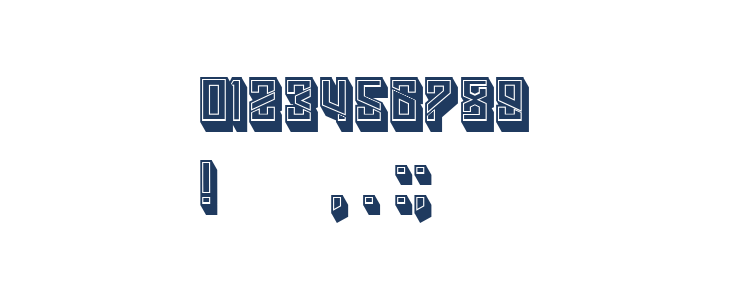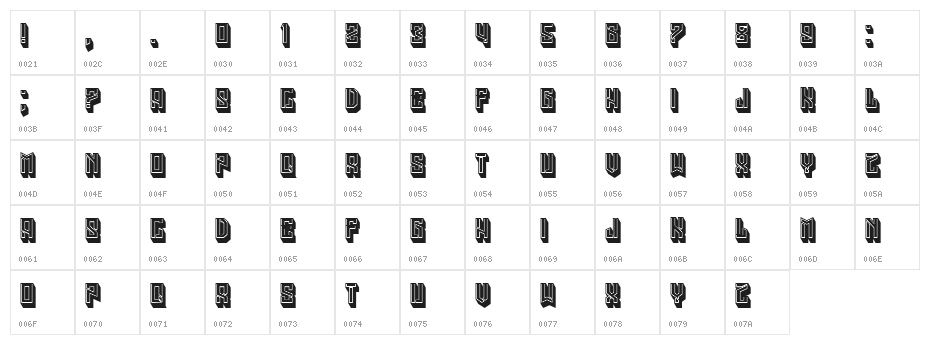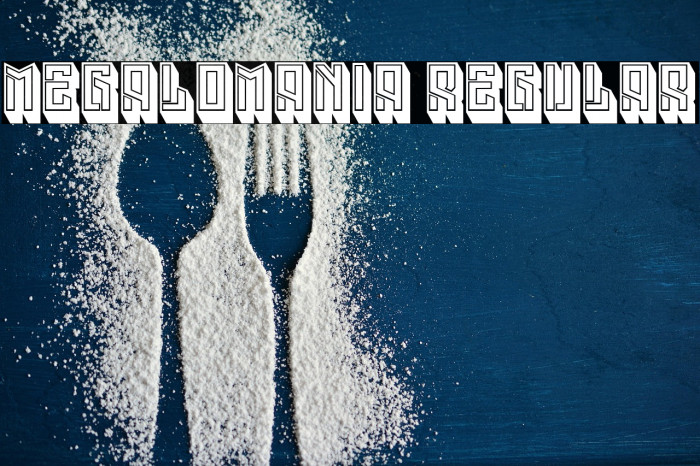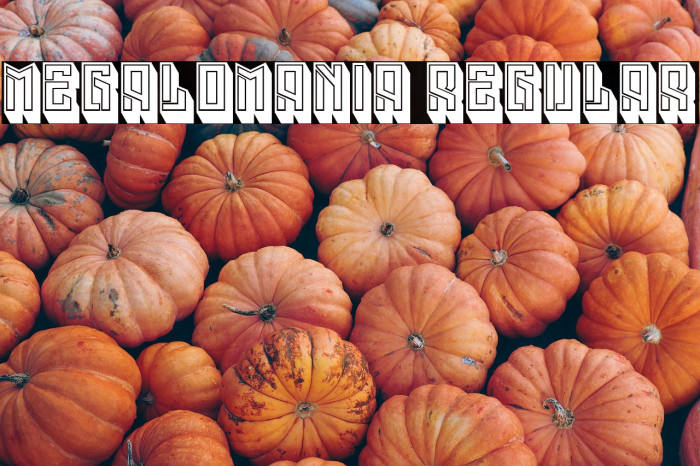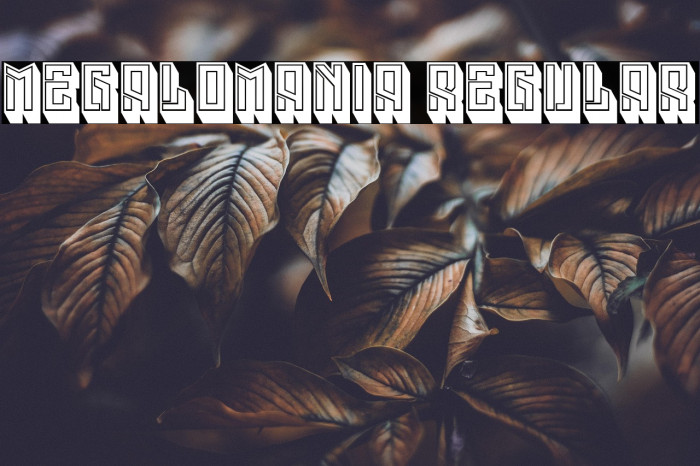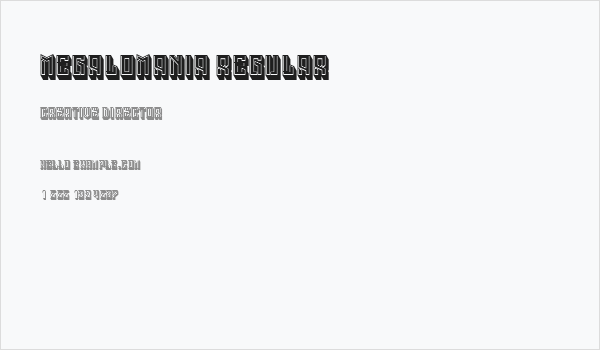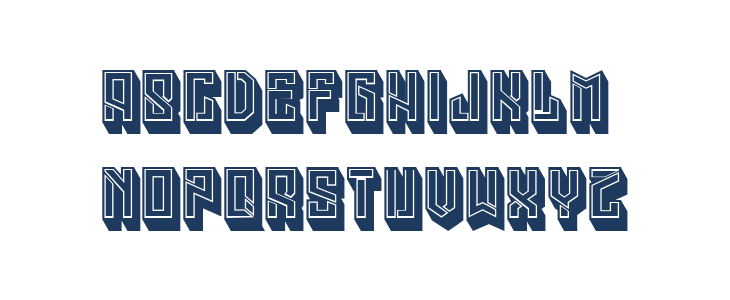
Megalomania Regular Font
Megalomania Regular Description
This font features a bold, three-dimensional design with a strong, geometric structure. Each character is outlined with a thick border, creating a shadow effect that gives the font a striking, impactful appearance. The angular lines and sharp edges contribute to a futuristic and industrial aesthetic. The uppercase and lowercase letters maintain a consistent style, while the numerals and special characters seamlessly integrate into the overall design. This font's unique style makes it ideal for projects that require a bold and eye-catching typeface.
| Overall Style | Modern, Futuristic |
| Proposed Projects | Ideal for posters, album covers, video game titles, and branding that requires a bold statement. |